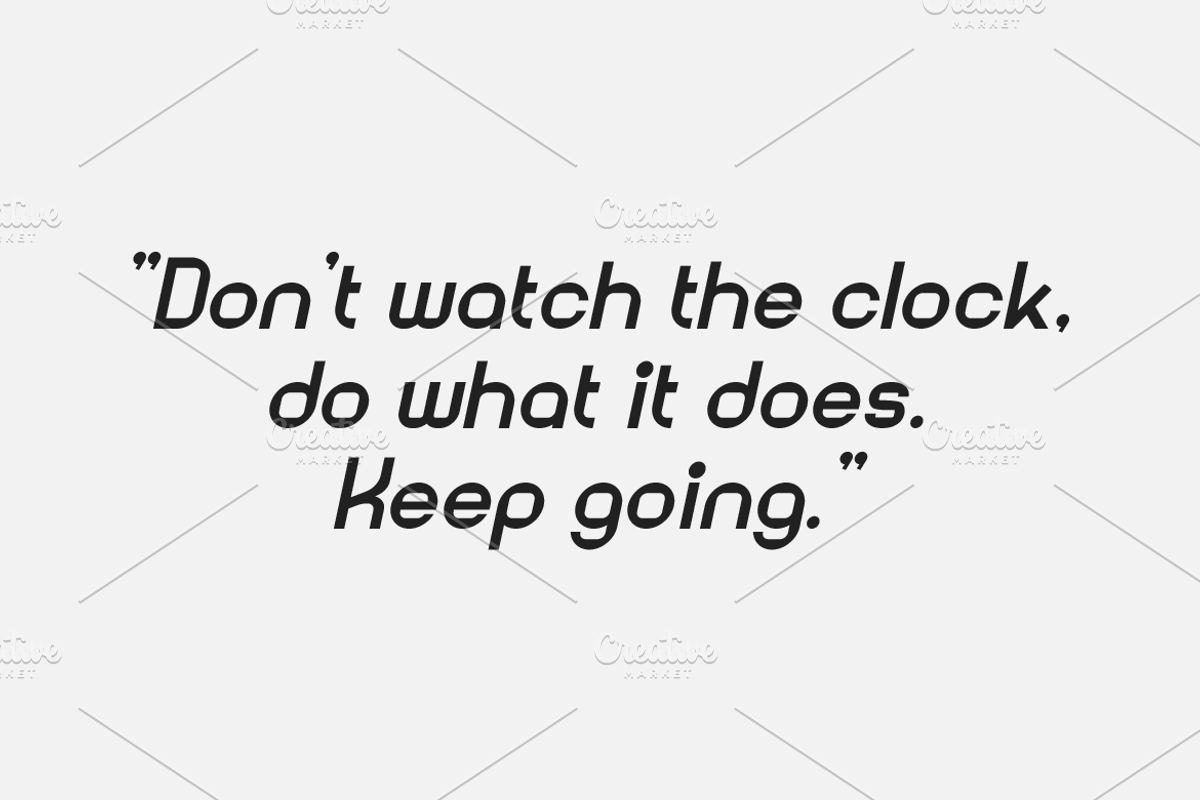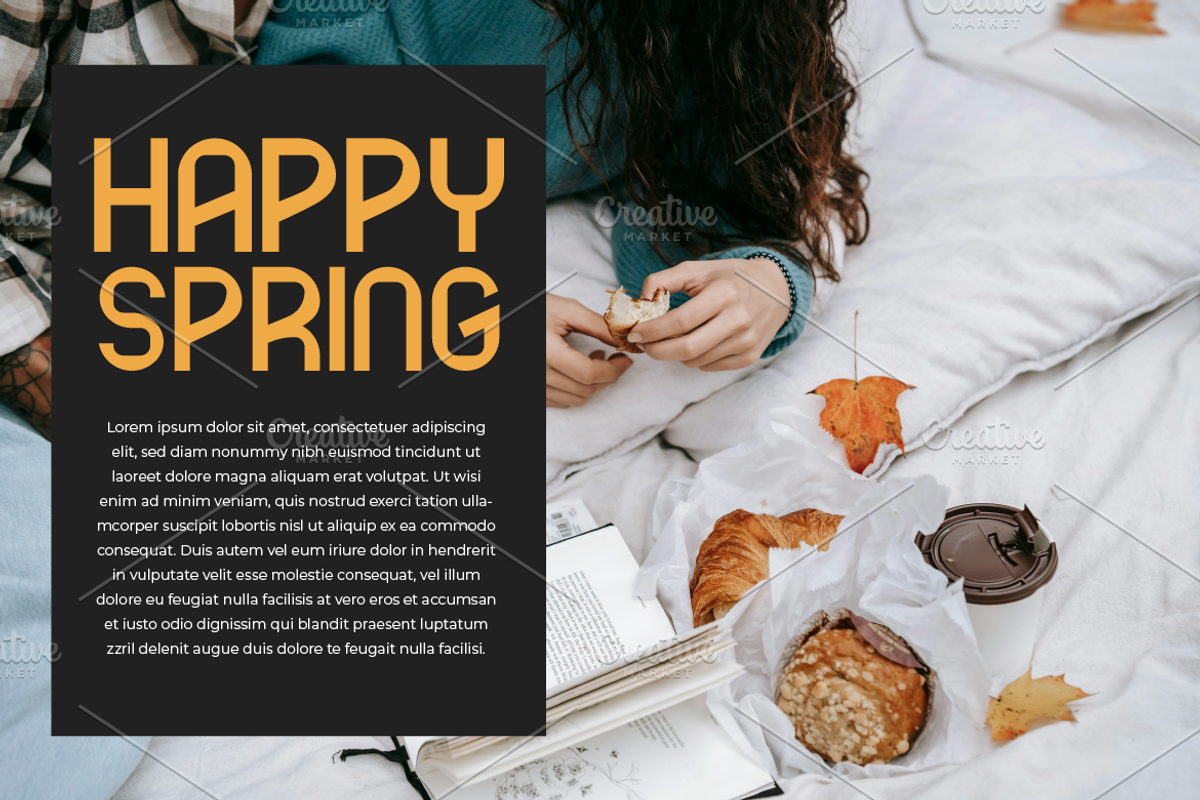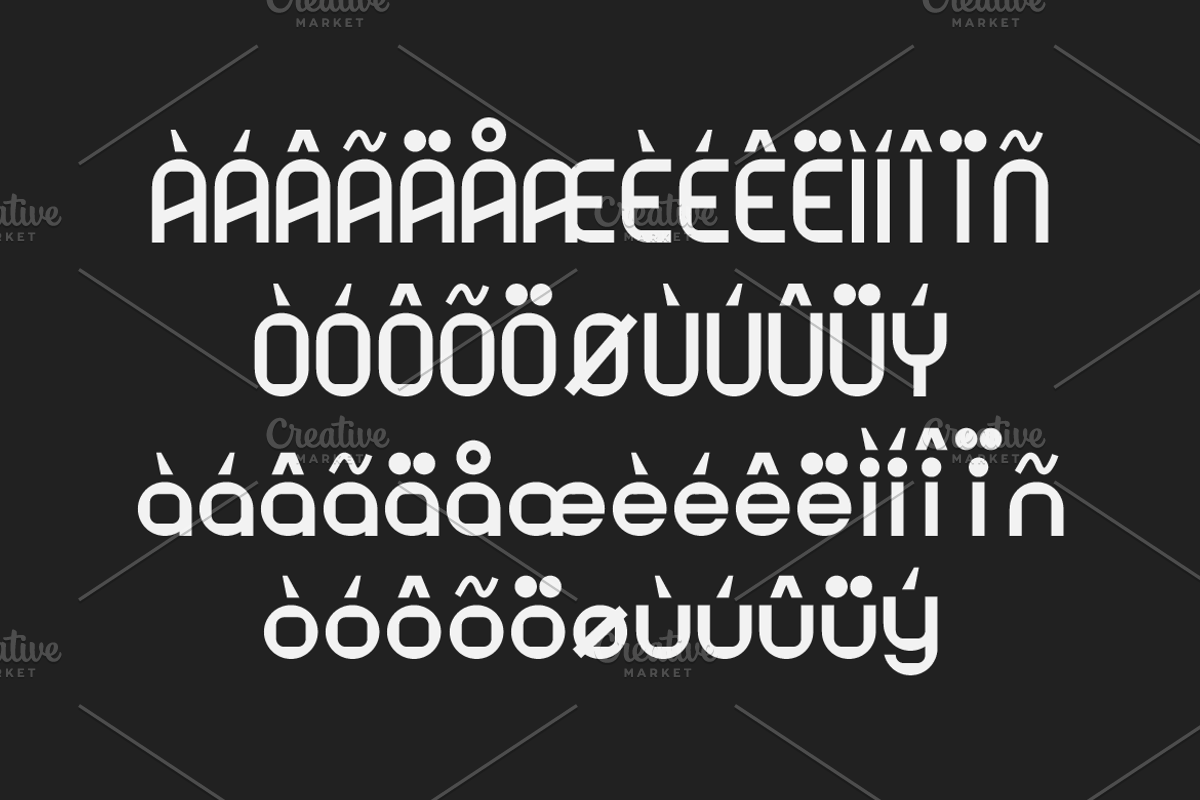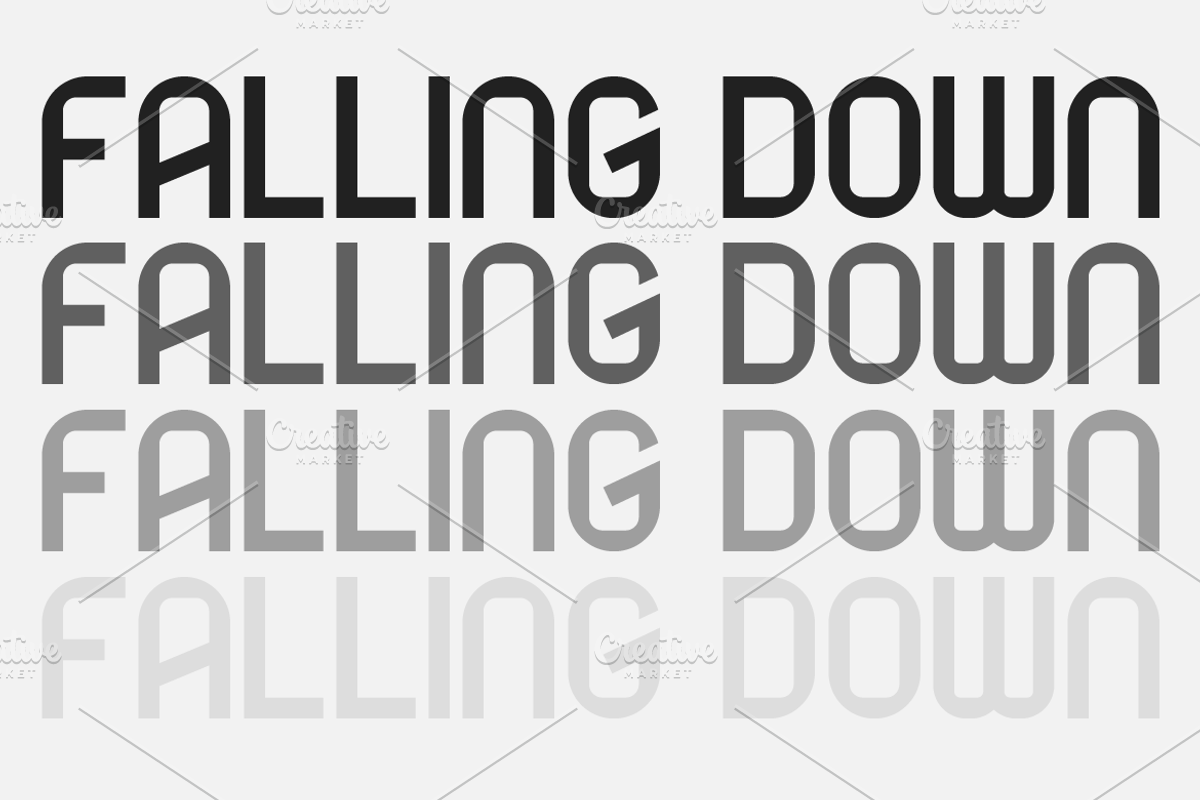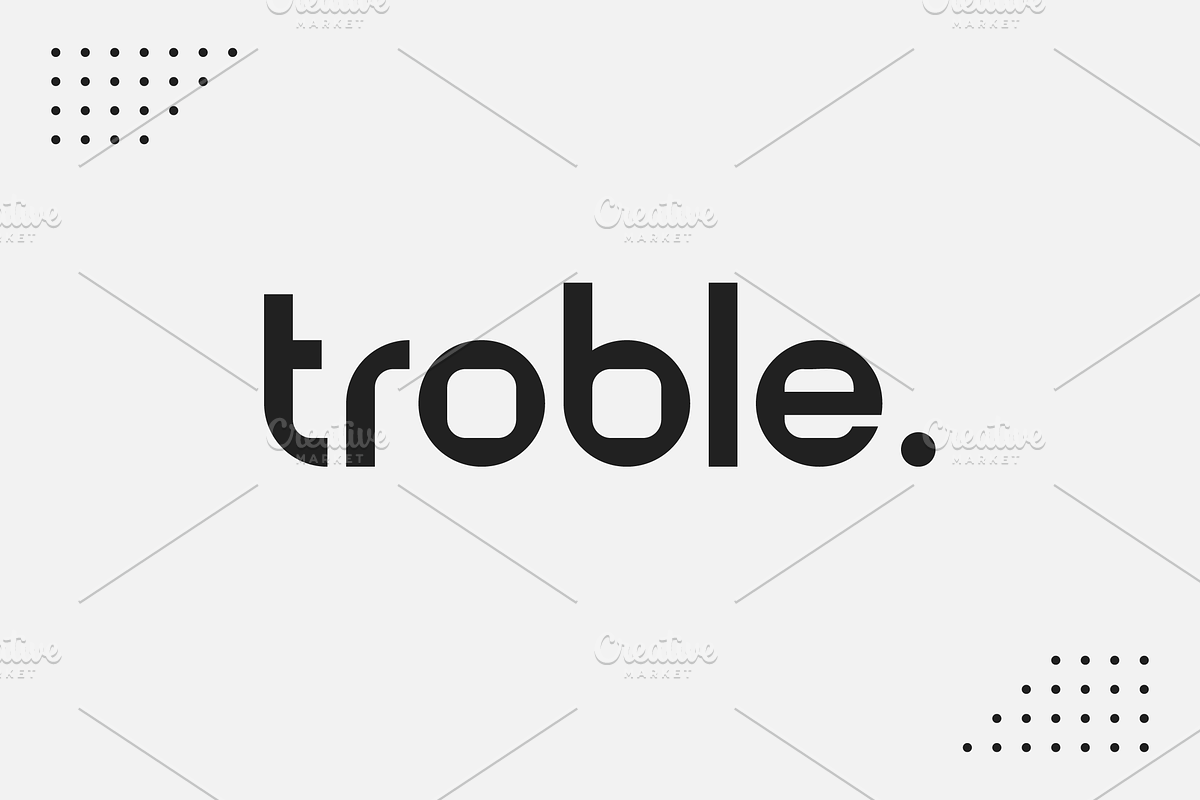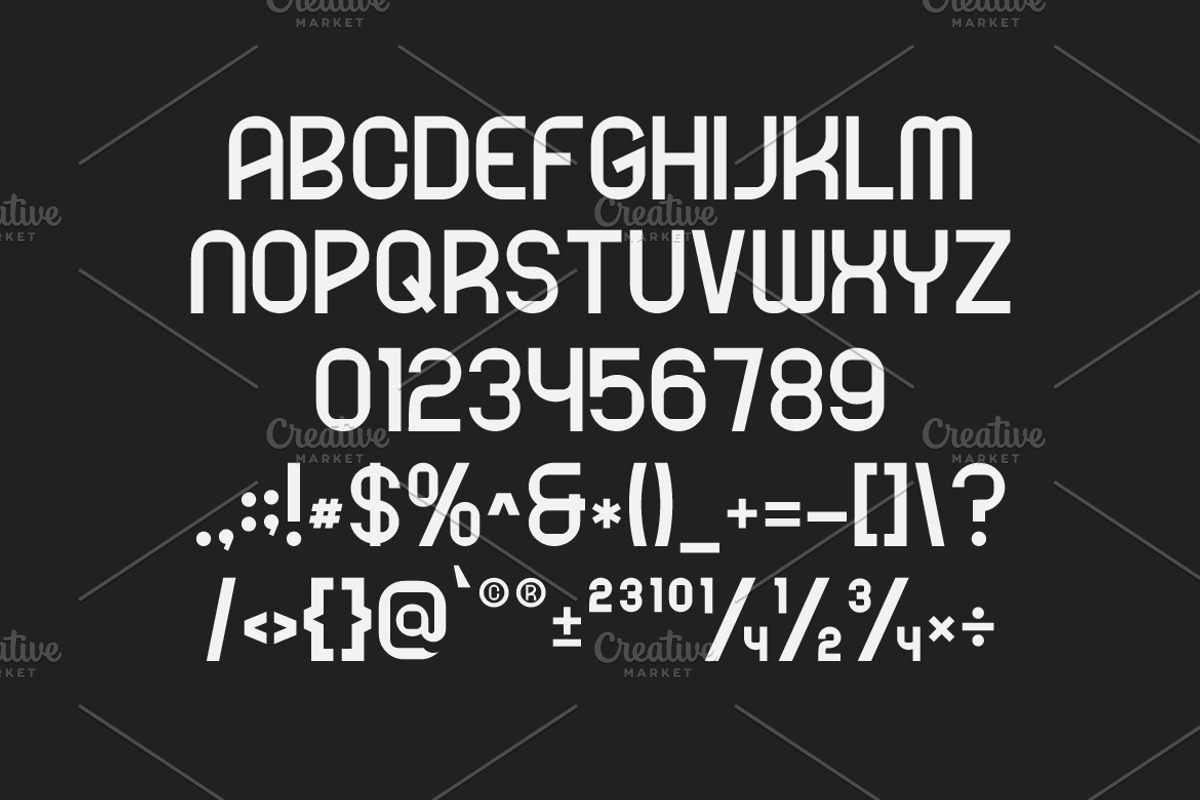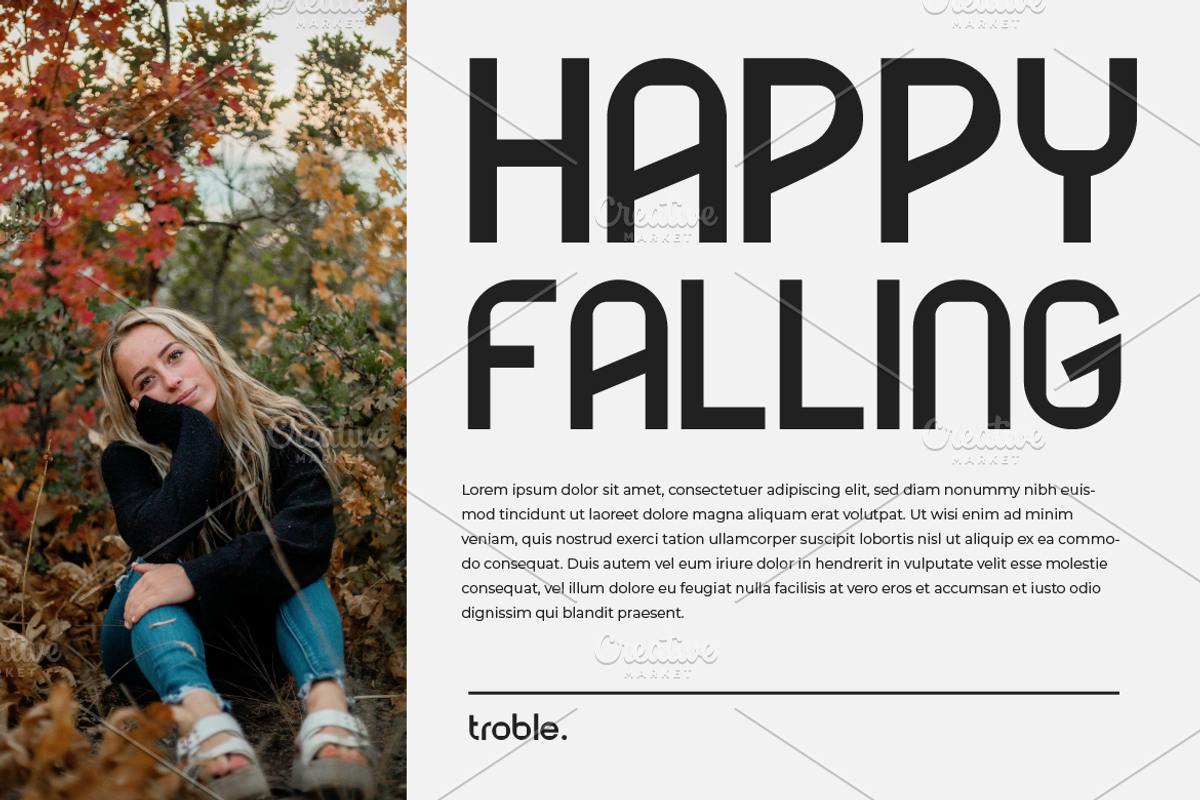
Troble Unique Sans Typeface
Troble is a modern sans serif font designed by Iwan Alwan, featuring clean, bold letterforms that balance simplicity with impact. Perfect for branding, headlines, posters, and digital design, Troble offers a strong and professional aesthetic. With multilingual support, ligatures, and alternates, Troble delivers versatility and a sleek, contemporary look, making it ideal for projects that demand clarity and modernity.